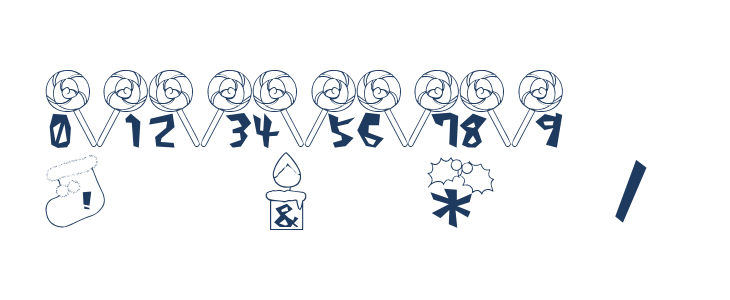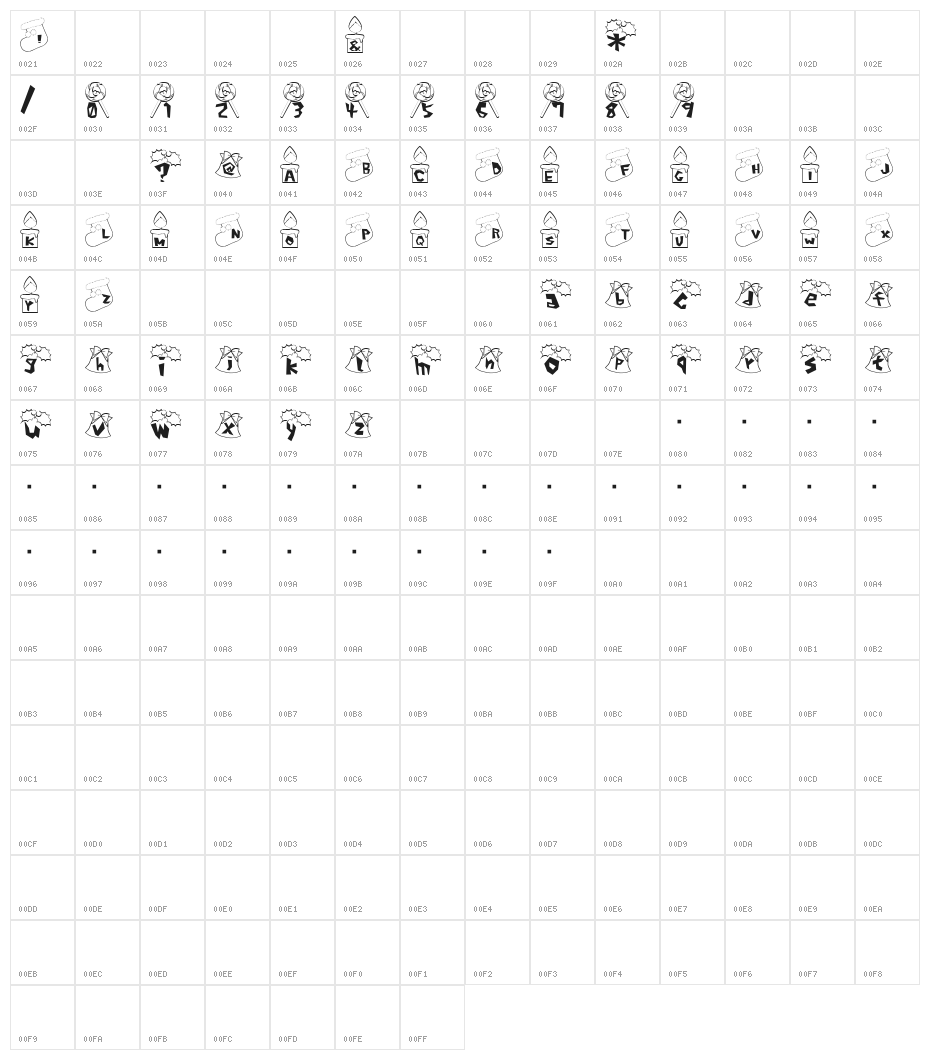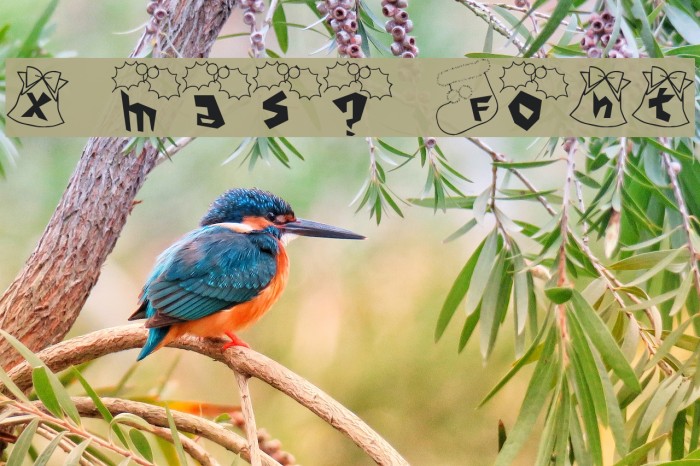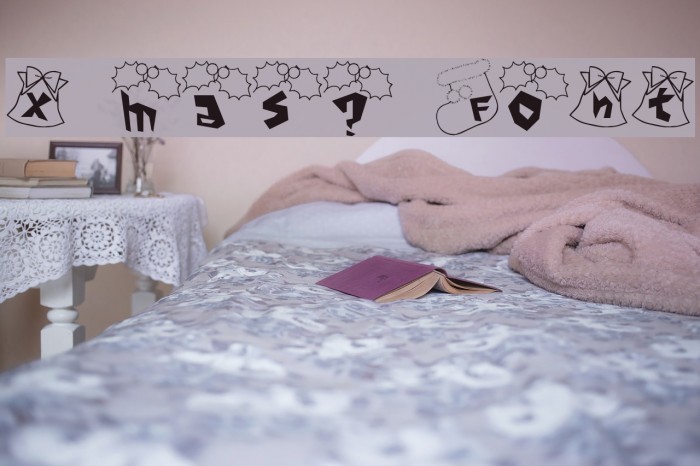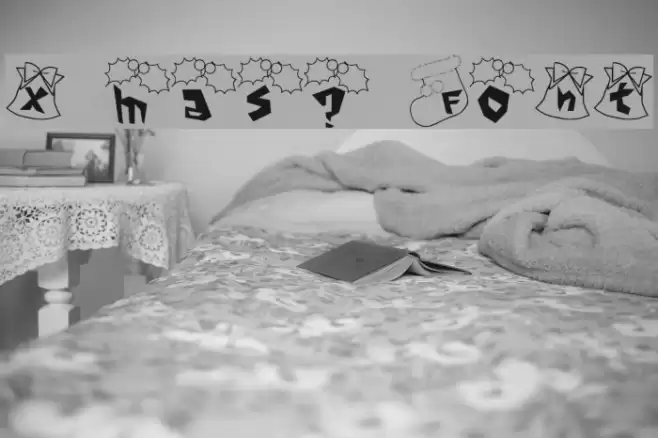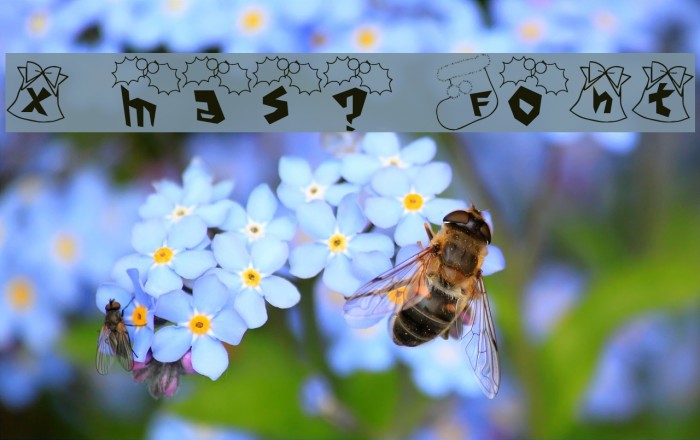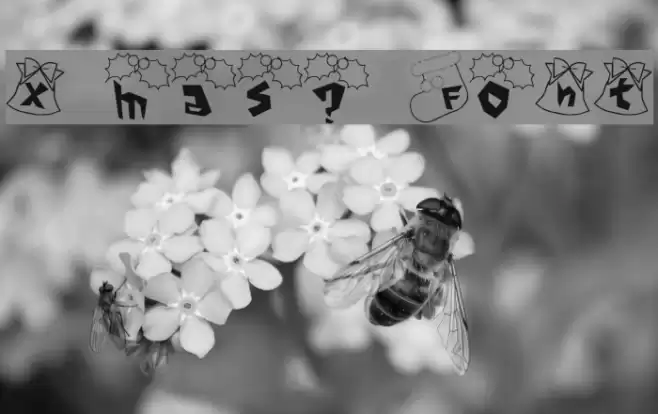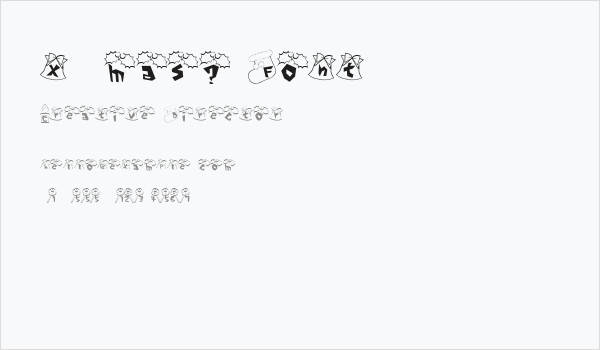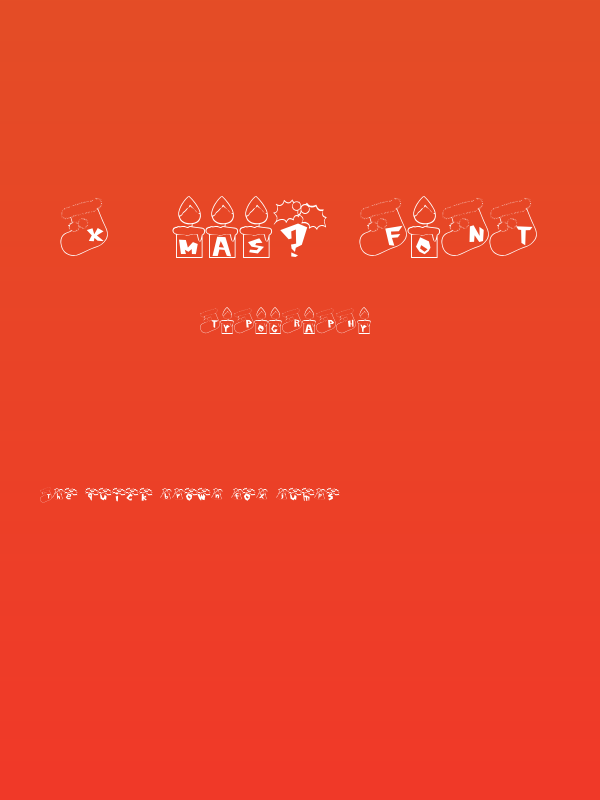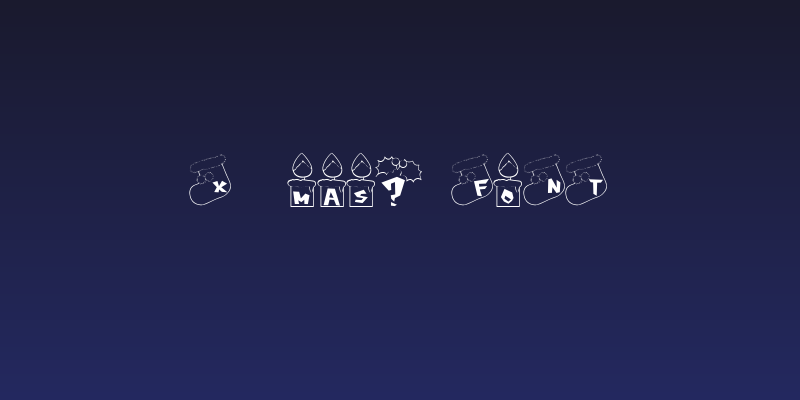
x'mas? Font Font
x'mas? Font Description
This festive font features a playful and whimsical design, perfect for holiday-themed projects. Each letter is creatively integrated with Christmas elements such as stockings, holly, and candy canes, providing a unique and decorative appearance. The uppercase letters are adorned with stockings, while the lowercase letters are embellished with holly. Numbers are cleverly designed as lollipops, adding to the playful nature of the font. Special characters include a candle and other festive symbols, enhancing the holiday spirit. The font's style is highly decorative, making it ideal for capturing the essence of Christmas in a fun and engaging way.
| Proposed Projects | Ideal for holiday cards, festive banners, Christmas party invitations, and seasonal advertisements. |